Super Hero Font Style
Super Hero Font Style. Rogue hero by iconian fonts. Use as a comic book font.
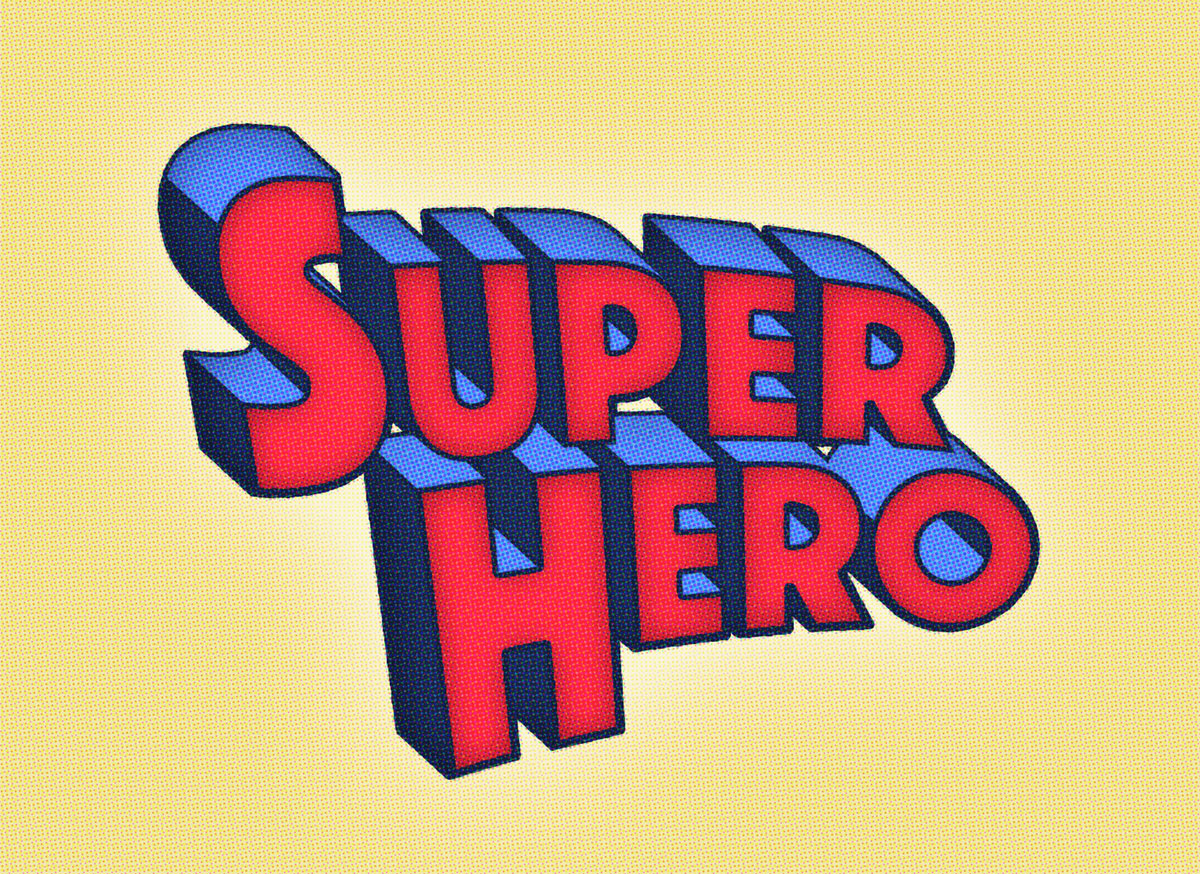
Best Friends Is A Fabulous New Comic Book Style Font That Packs A Huge Kapow!
Use As A Cartoon Font.
A Font For All Little (And Big) Superheroes Out There.